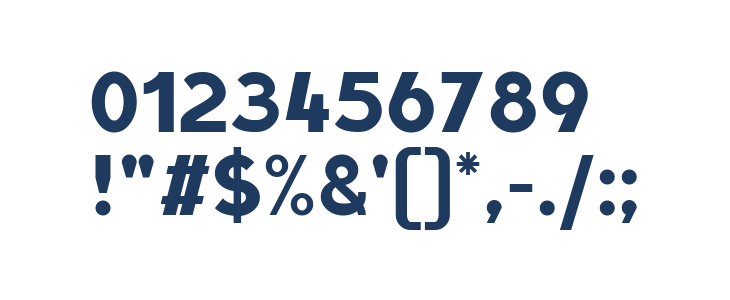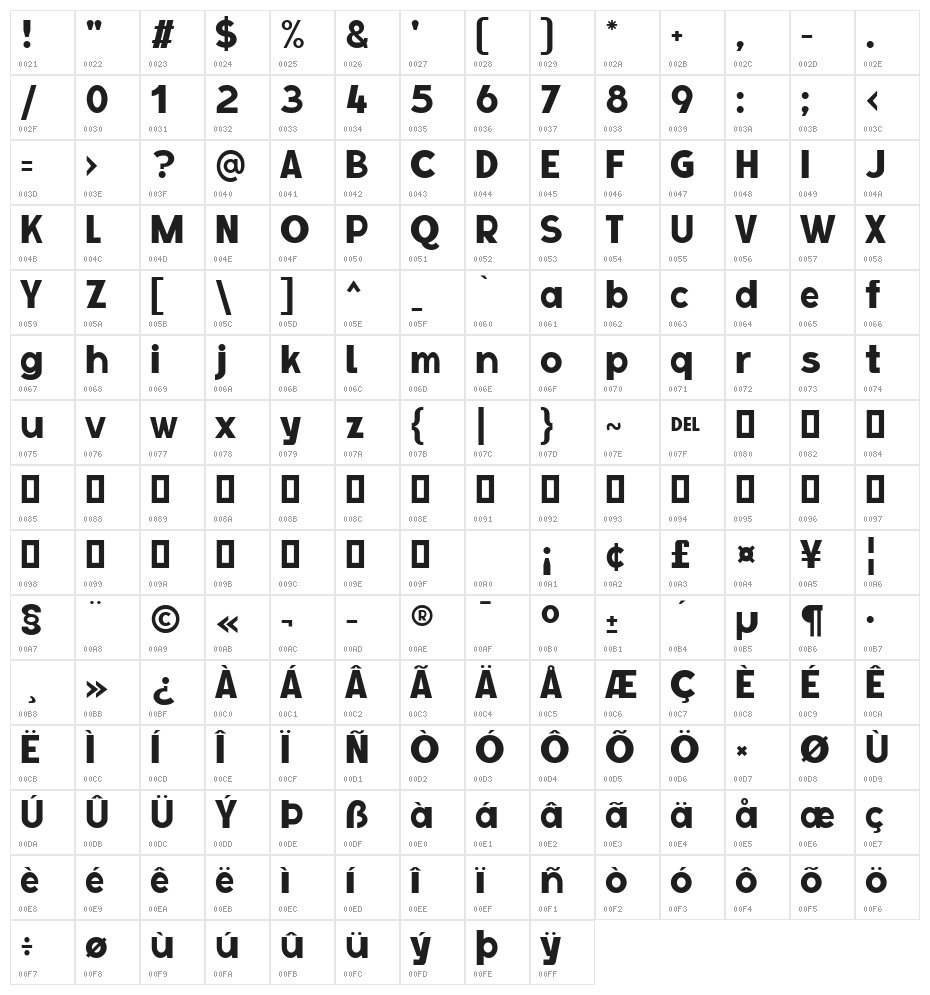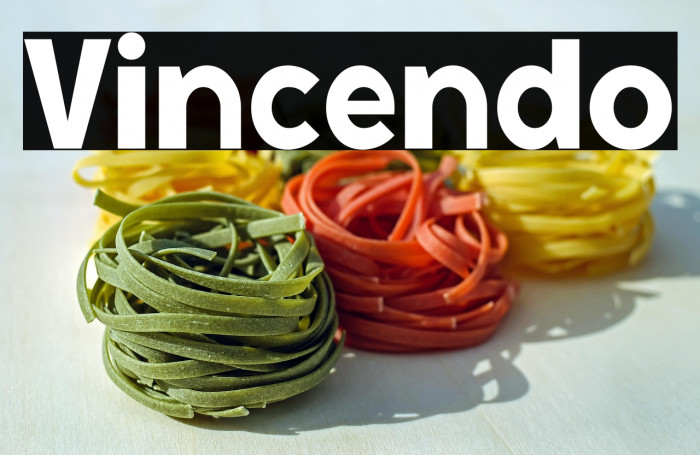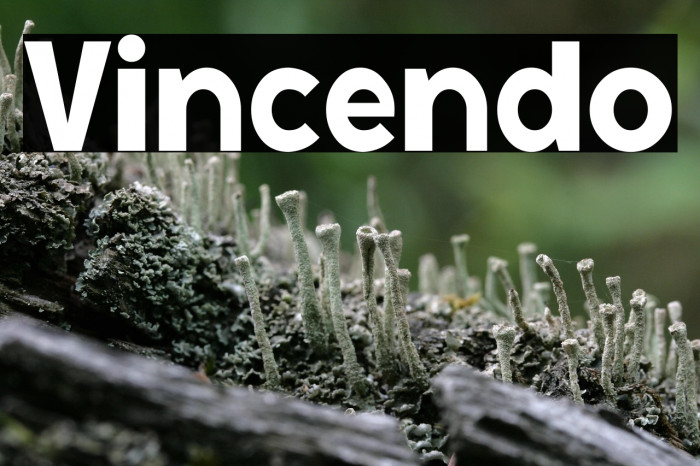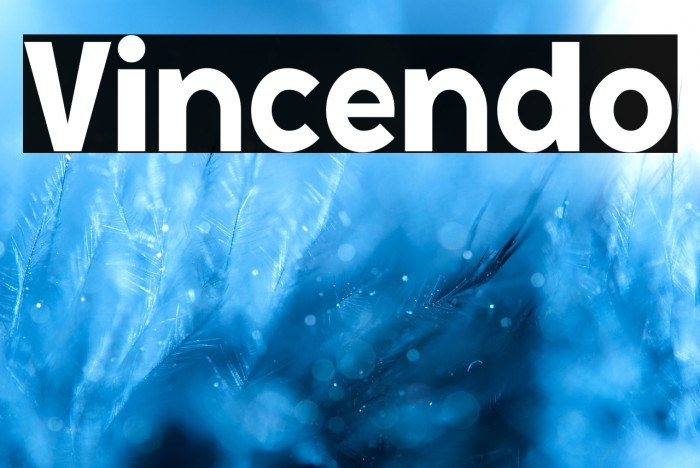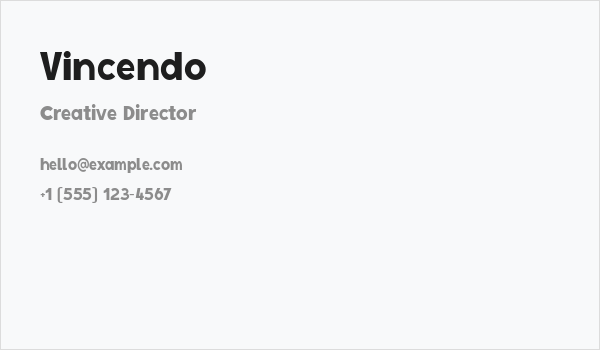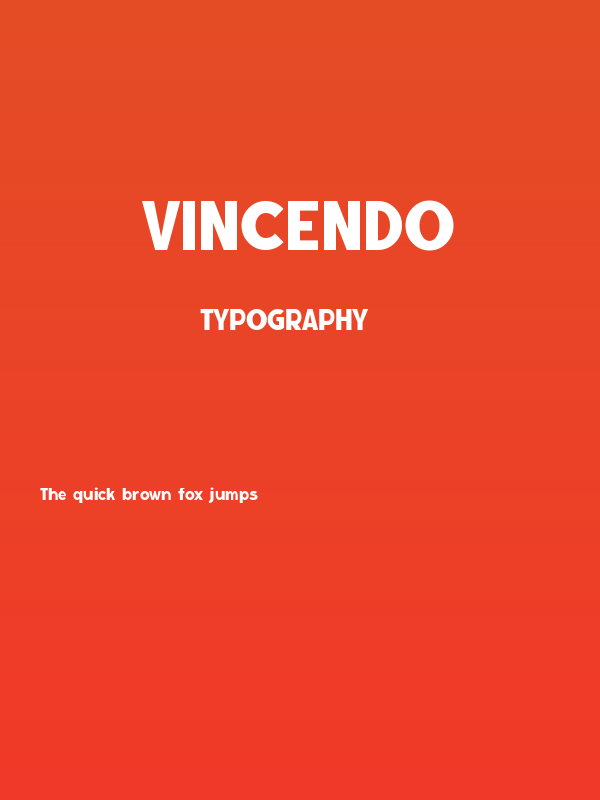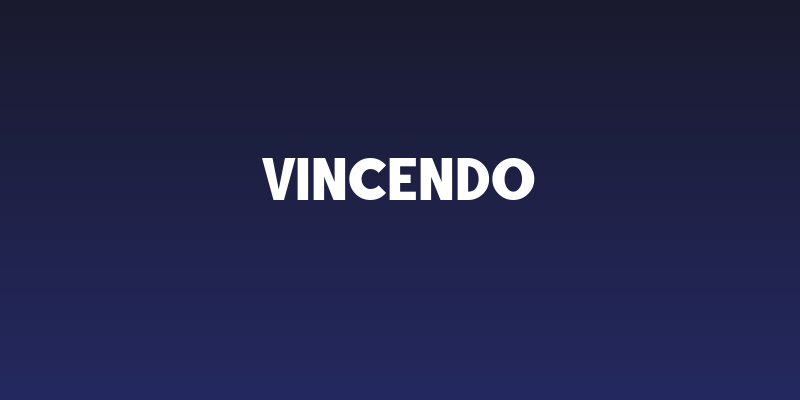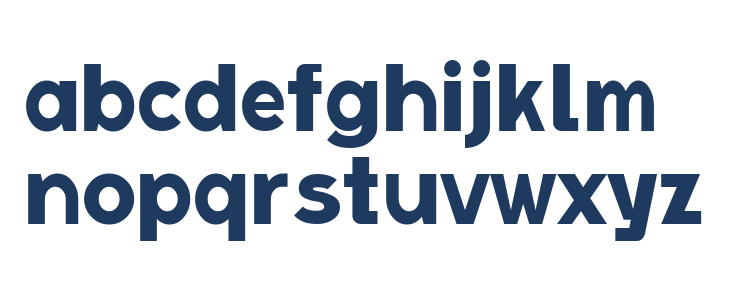
Vincendo Font
Vincendo Description
This font features a bold and modern sans-serif design, characterized by clean lines and a strong presence. The uppercase and lowercase letters maintain a consistent width, providing a balanced and harmonious appearance. The numerals are clear and easily distinguishable, making them suitable for various applications. Special characters are well-integrated, ensuring versatility in design projects. The overall style is contemporary, with a focus on readability and impact, making it ideal for both digital and print media.
Use CaseHeadlines, Logos, Advertising
Proposed ProjectsIdeal for branding, headlines, advertising, and digital media projects.